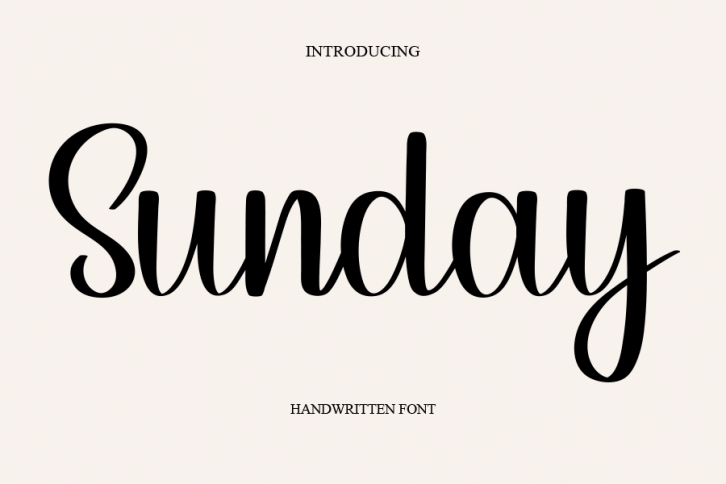
Sunday is a sweet and adorable handwritten font. This versatile font has a wide spectrum of applications ranging from greeting cards to headlines and is guaranteed to add a neat and natural feel to your next project!